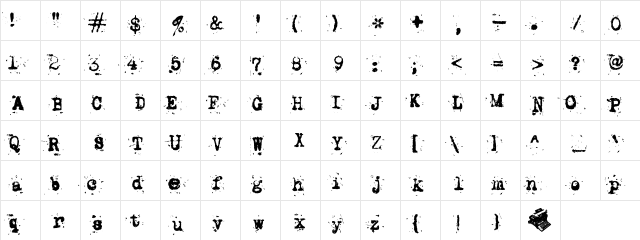
LD Fox 24 Regular
Design Context for LD Fox 24 Typeface
LD Fox 24 takes a measured approach to typography — its balanced proportions and neutral character make it a reliable workhorse for both digital and print work.